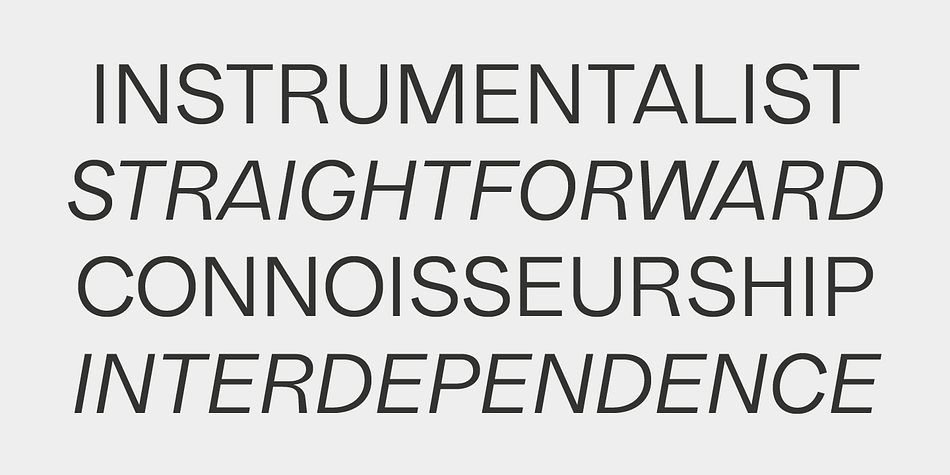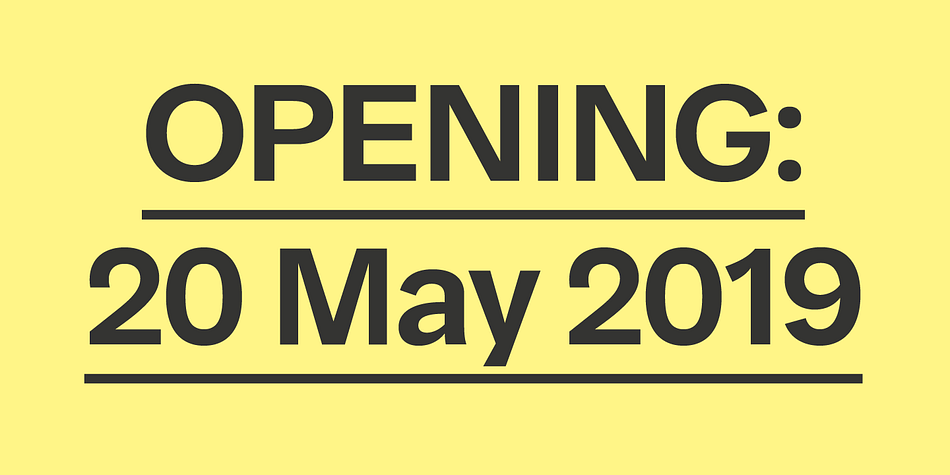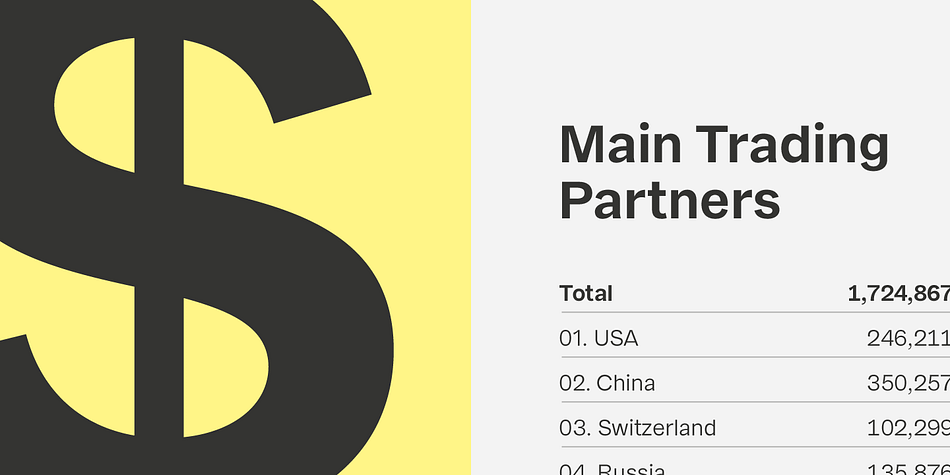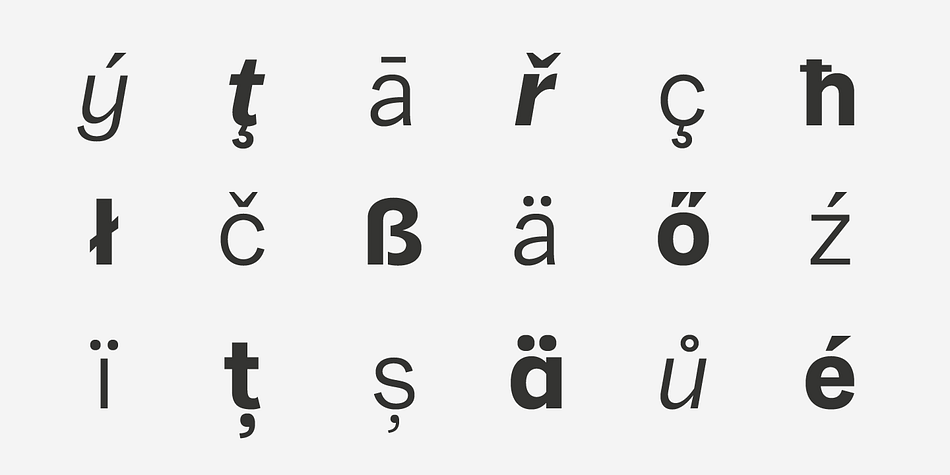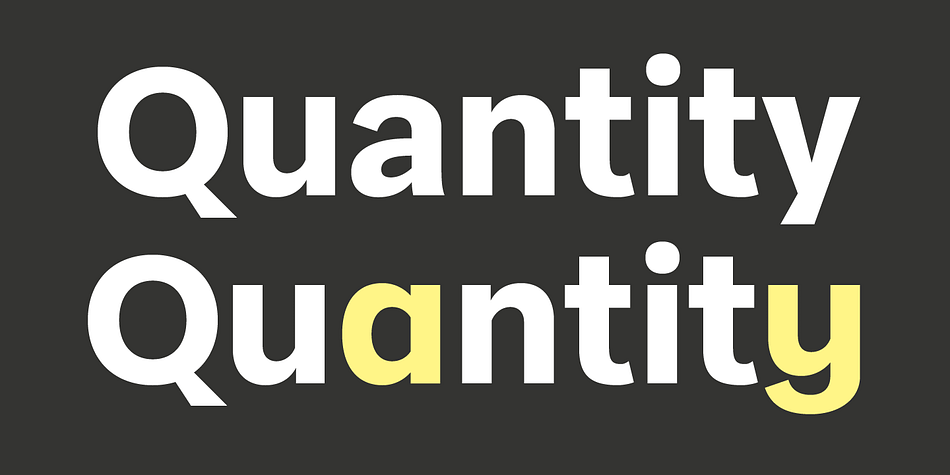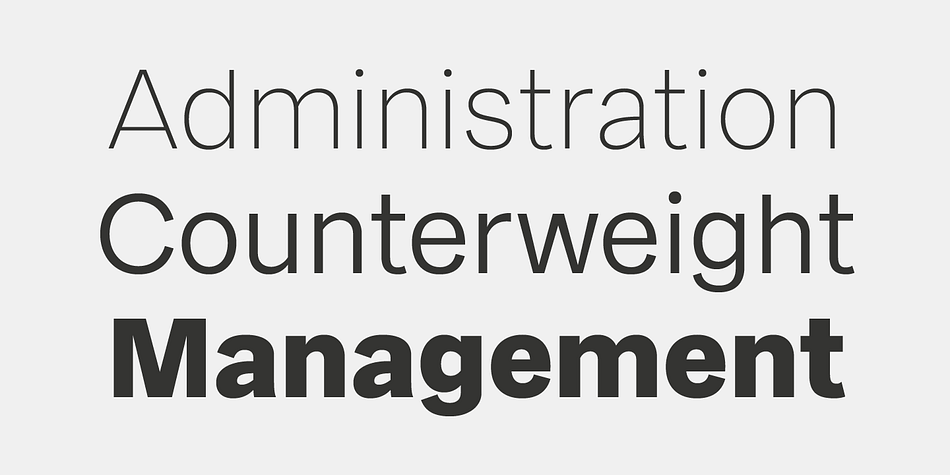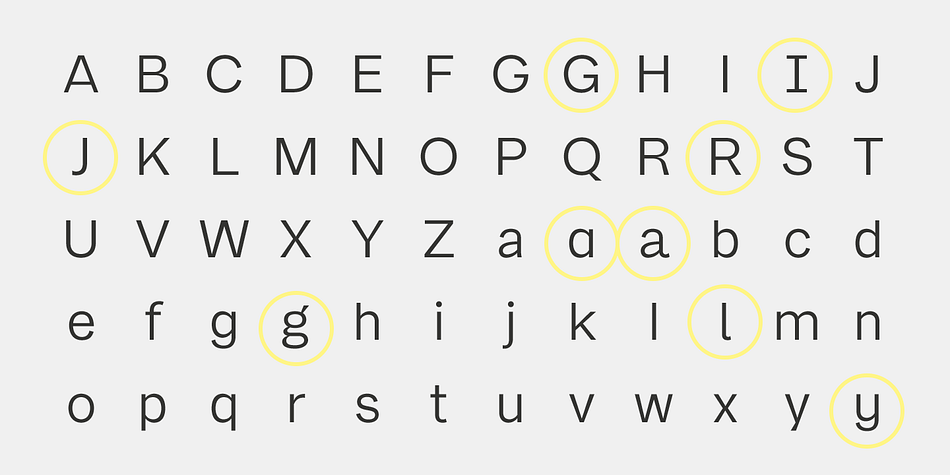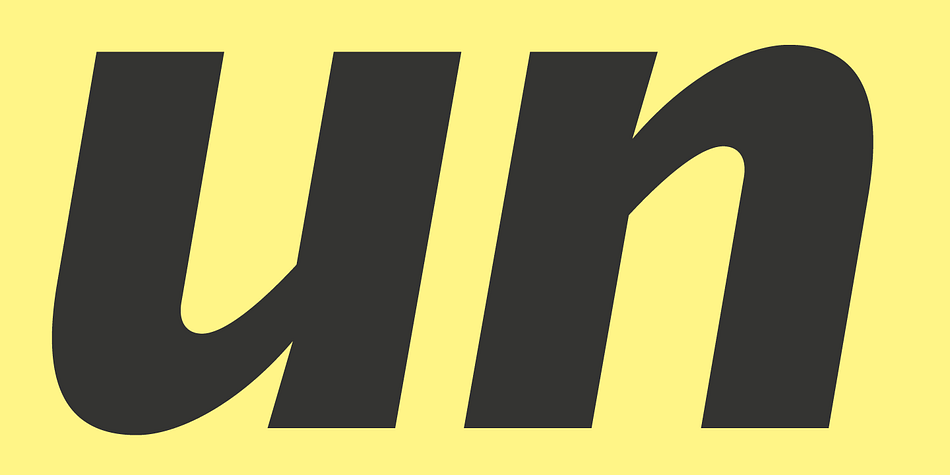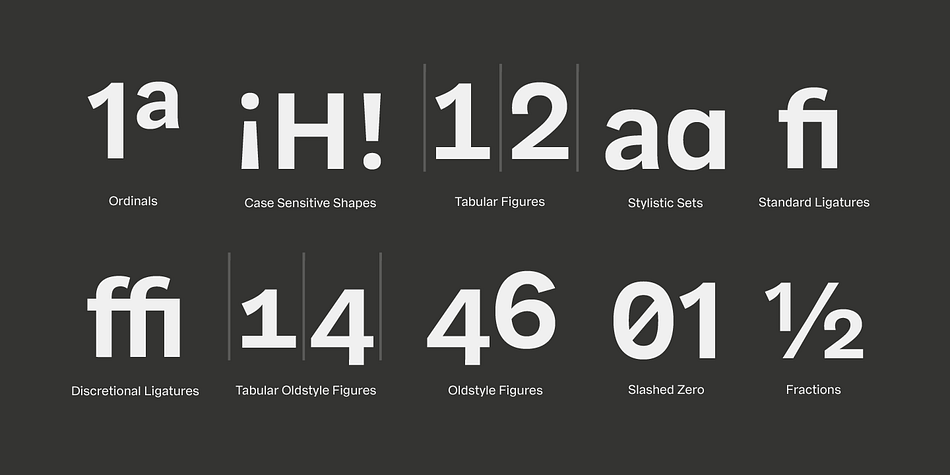
Designed by René Bieder, Franca is a sans serif font family. This typeface has eighteen styles and was published by René Bieder.
Franca is a neo-grotesk family in nine weights plus matching italics. The inspiration for the design came trough the constant interest in new interpretations of the classic grotesk model and a study of „neutral“ typefaces like Helvetica, Univers or Normal Grotesk. During the studies, additional attention was given to the American representatives of the genre, resulting in the initial impetus for a reinterpretation, combining both paths into one contemporary design. This is reflected in the name, blending together the names of the most popular typefaces of each genres, (Fran)klin and Helveti(ca).
Due to its large x-height and plain design, the family is perfectly suited for all kinds of text. Its mid-weights are optimized for usage in long paragraphs, while the bolder weights, due to a short descender and ascender, create a compact and confident look in headlines or short copy.
In order to create strong and dynamic italics, the oblique glyph shapes come with a faint calligraphic hint, defined by a higher stroke contrast and a steeper connection between stems and arcs in, for example, h n m and u. This is followed by different standard shapes for a and y, supporting the dynamic movement of the lowercase in general.
A wide range of opentype features like ligatures, old style figures, fractions, case sensitive shapes and many more, is available for professional and contemporary typesetting. This is completed with eleven alternative glyph sets, enabling a quick customization of the typeface.
The family supports up to 92 languages and comes with 500+ glyphs per font.